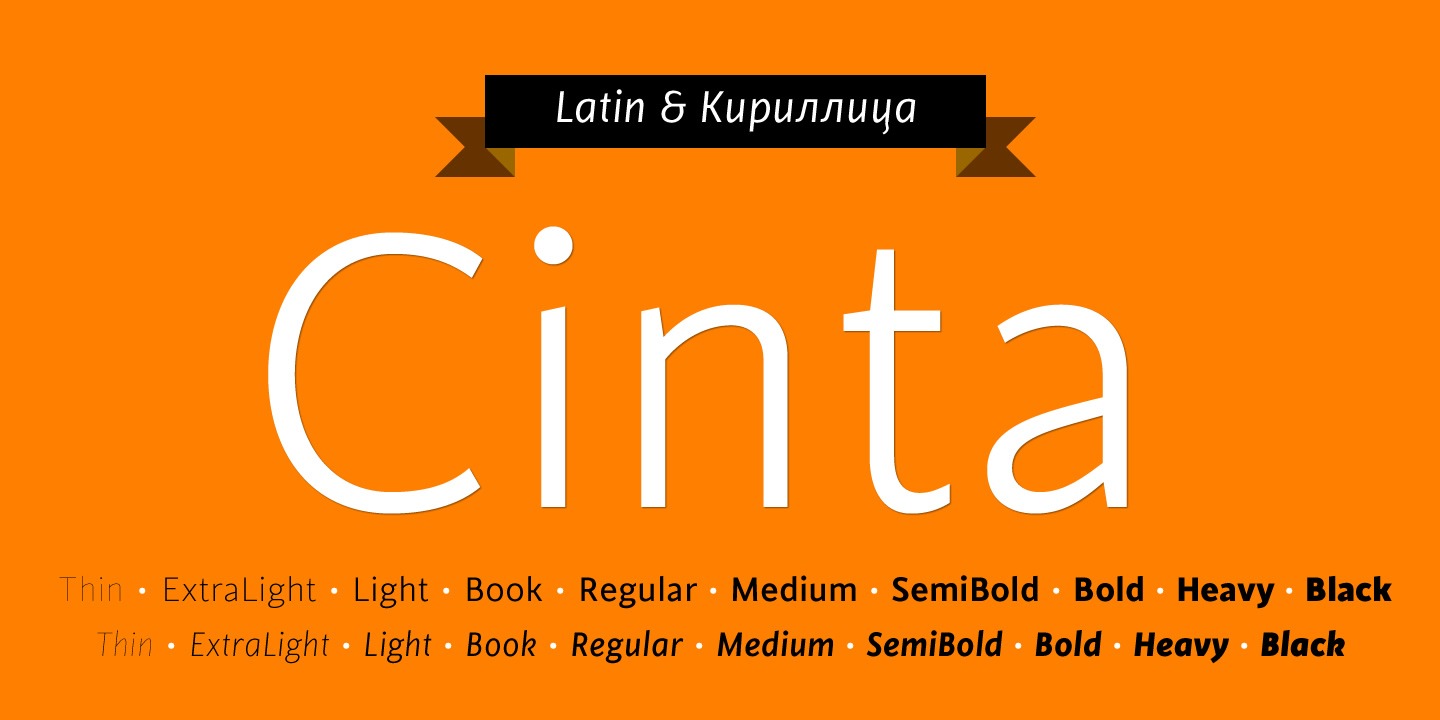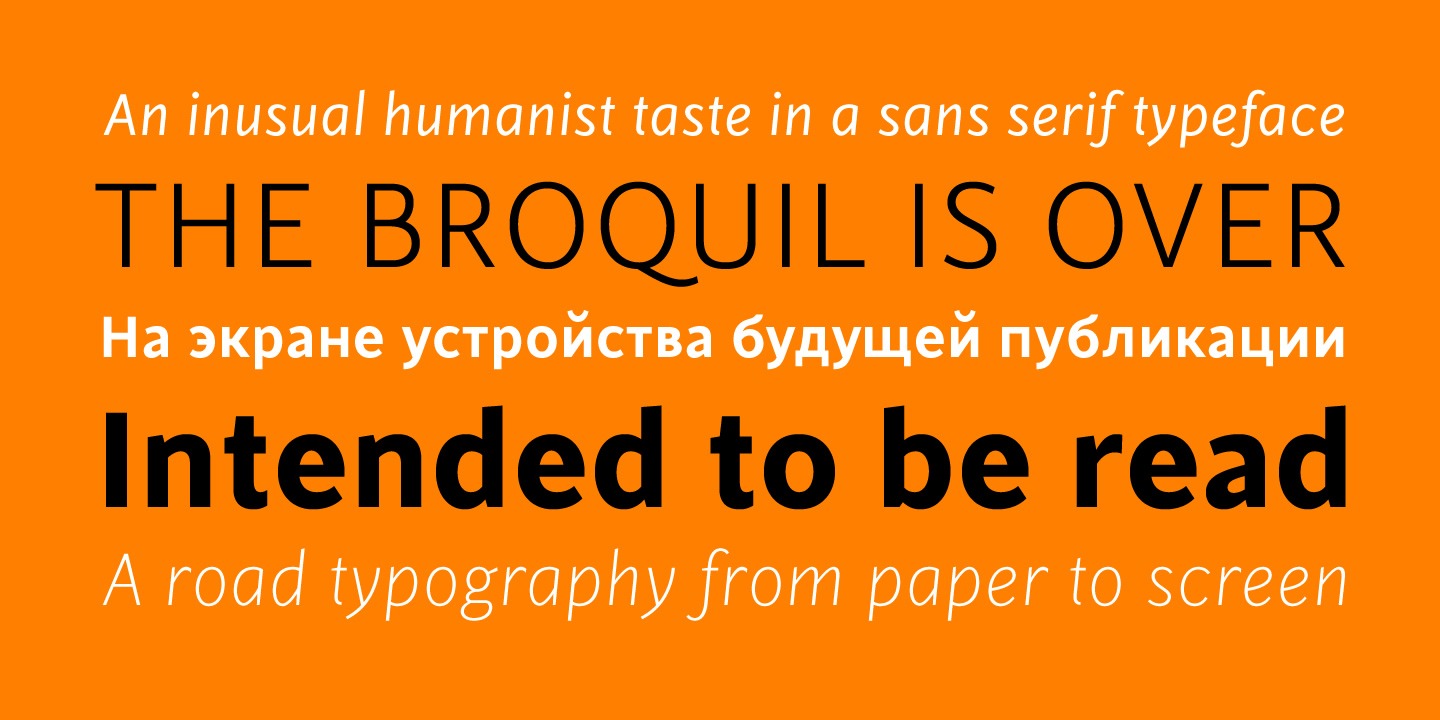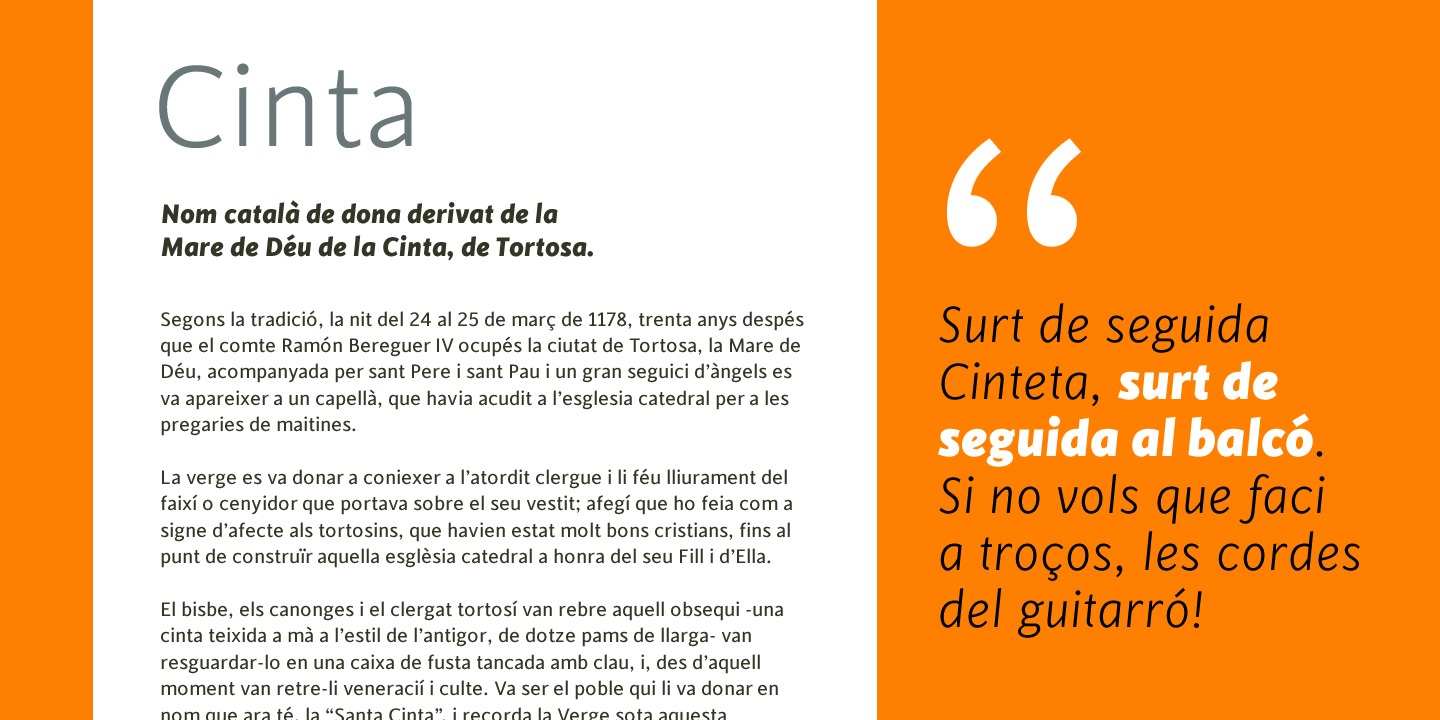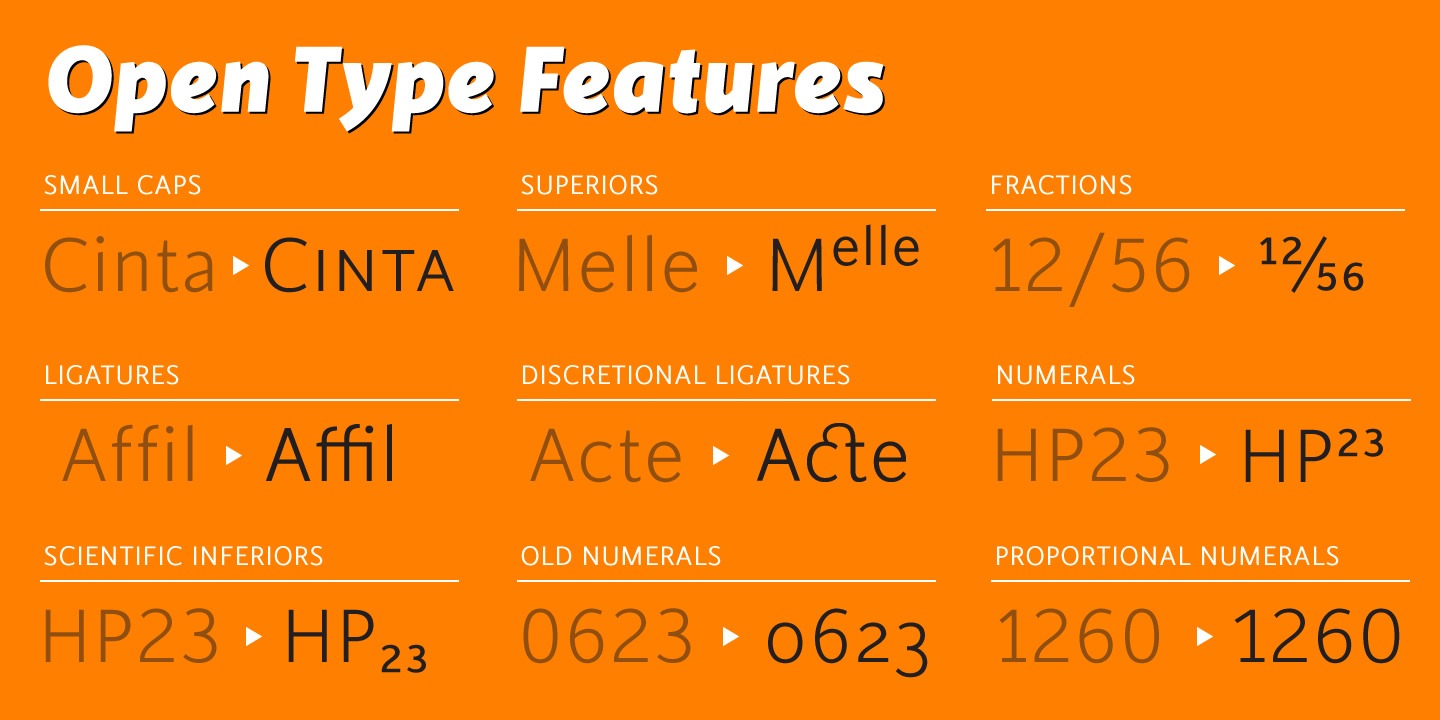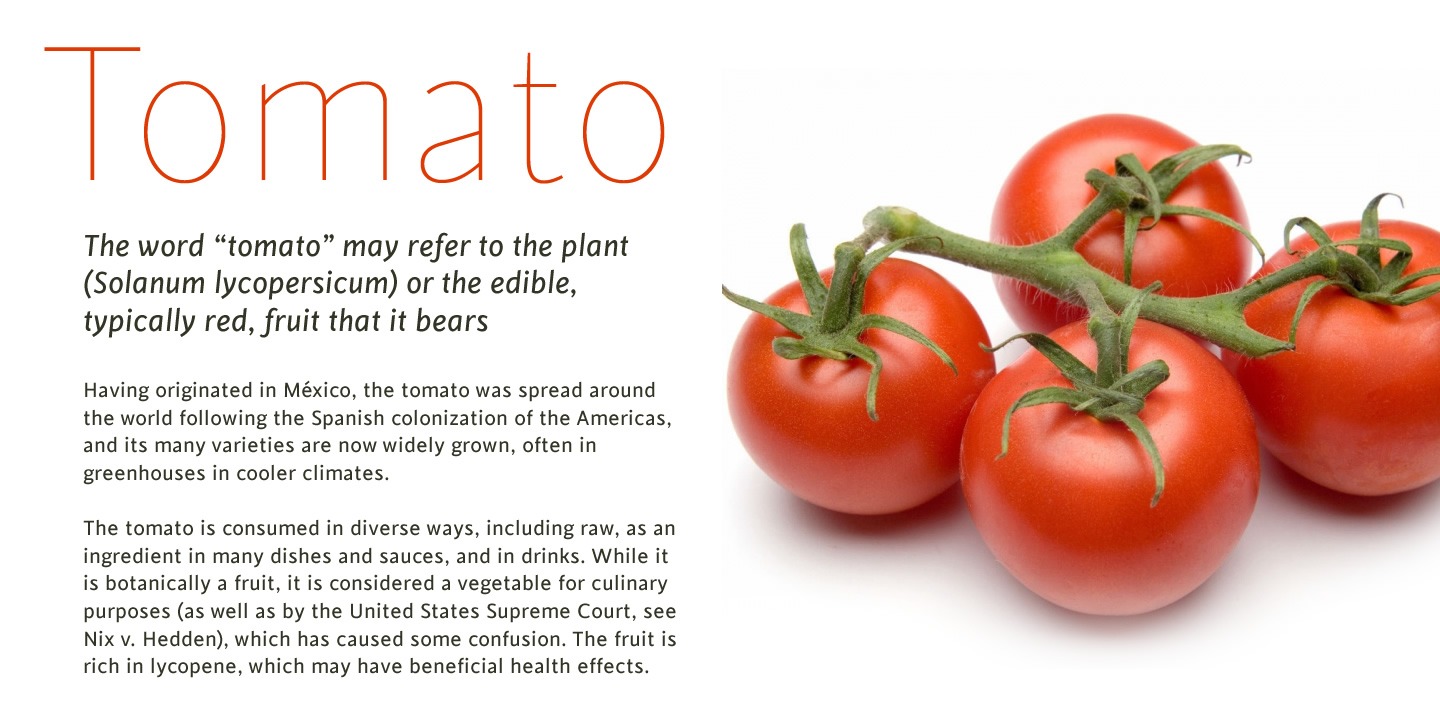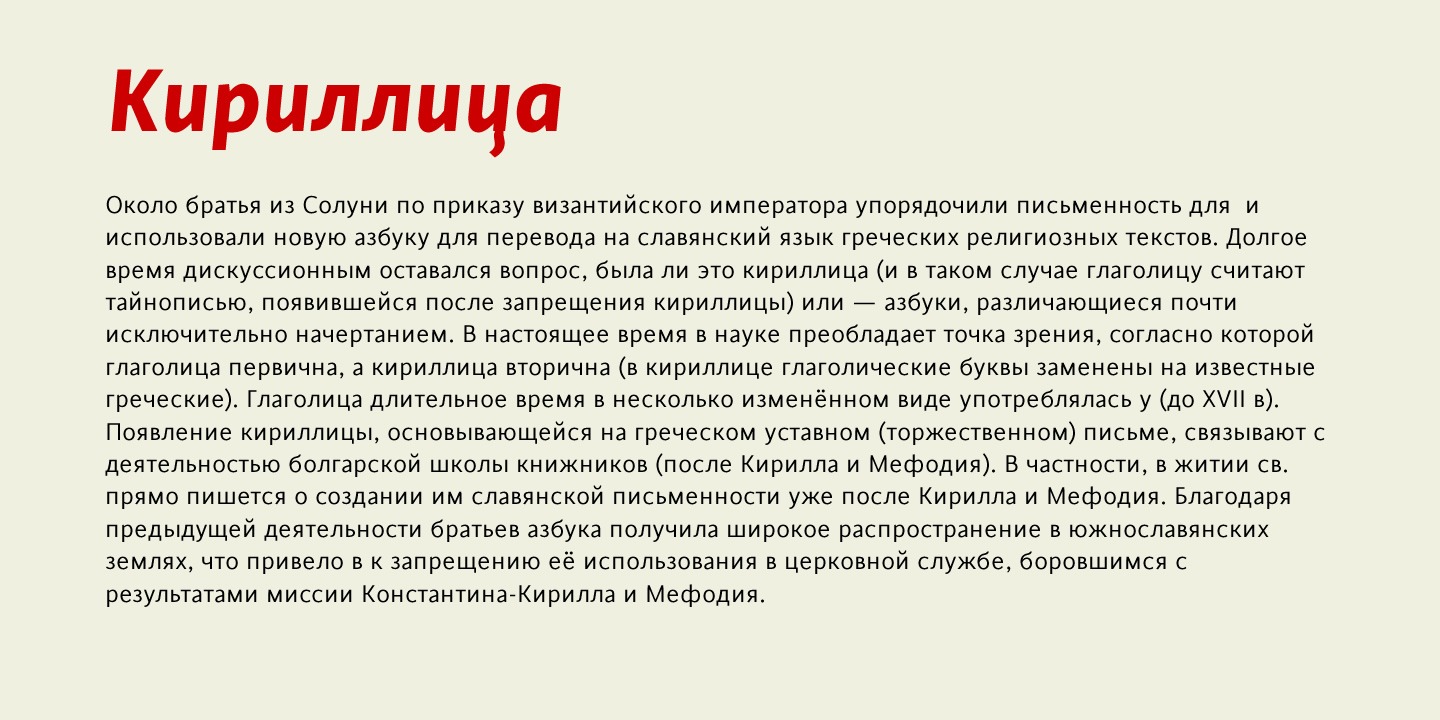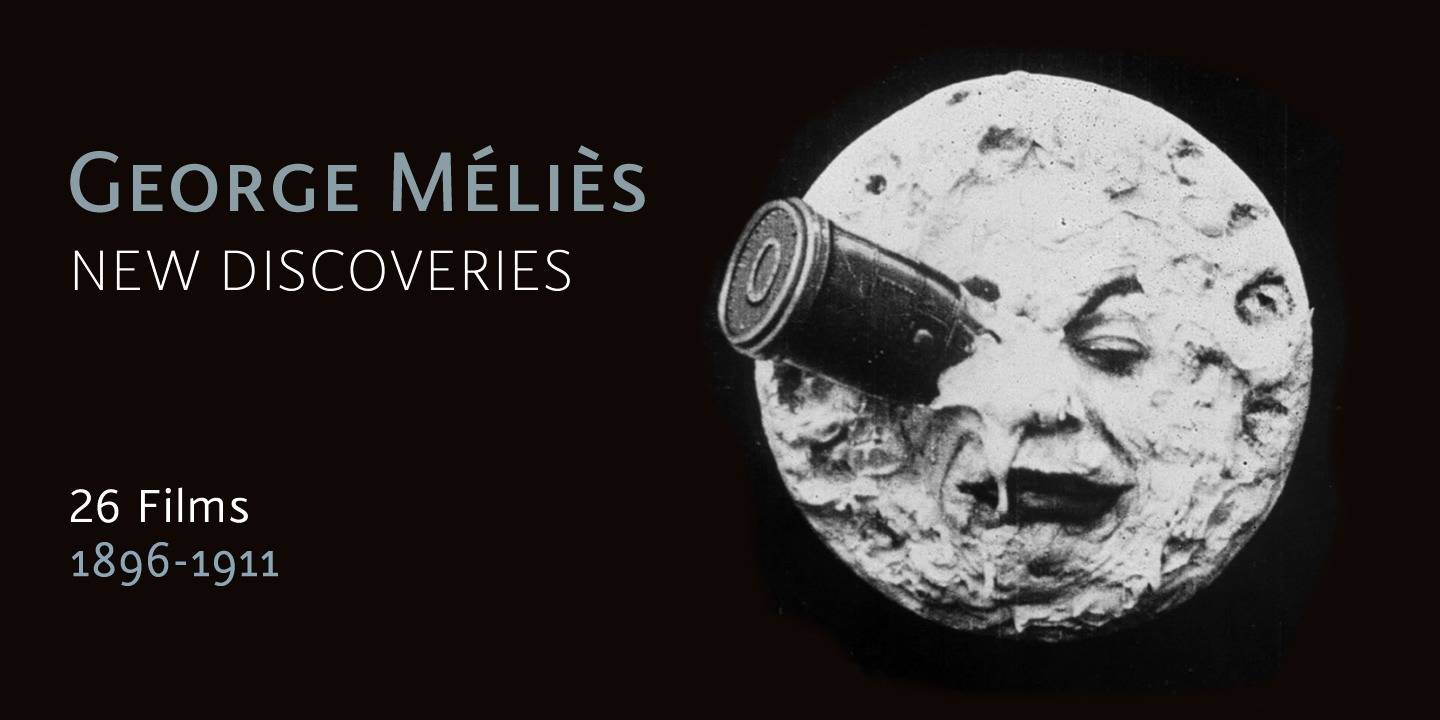
Cinta
Font Family by Tipo Pèpel
We are really happy to introduce you to Cinta, a brand new elegant sans serif font designed for text. It has a humanistic skeleton, dressed up with a hand-made mechanical suit, which made it rush, audacious. A dedicated tribute to the breakdown of mestizo music rhythm, bright, dreamy but completely real.
Full of a broad variety of weights and versions, it's able to produce subtle changes in the typographic stain. Perfect to make delicate hierarchy both in web and text and show the world their family background undoubtedly.
Prudent and thrifty, condensed forms and with a generous x-height, it almost accidentally saves space and avoids being a spendthrift. Discreet even in the italic, slightly slanted to produce a subtle change of look on web use, will make a delightful for the most exquisite users with the audacity of modernity. Classic but not silly.
Generous in abundance, with small caps, old numerals, denominators and numerators, fractions, ligatures, all you need to survive in the new modern life of Opentype with elegance. Polyglot, with support for Latin languages, Central European and Cyrillic.
A delicate friend who will delight ladies and gentlemen who are discerning and cosmopolitan.